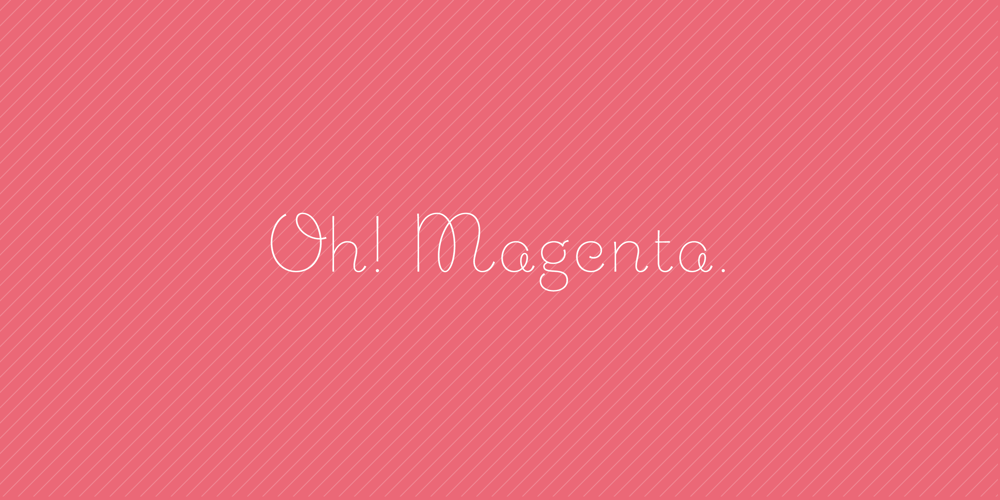
Chic Hand
Chic Hand font
Chic Hand Font Family was designed by Ryoichi Tsunekawa and published by Dharma Type. Chic Hand contains 24 styles and family package options. Handwriting letters with ligatures. This Chic Hand is characterized by its warm, girly and cute touch.